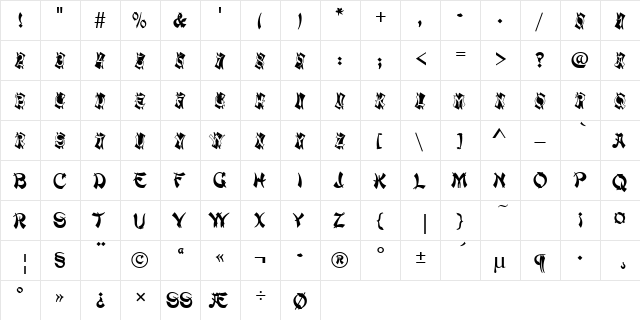
MandarinIniD Regular
Design Context for MandarinIniD Typeface
MandarinIniD is a composed and adaptable typeface that performs quietly and consistently across a wide range of design contexts.